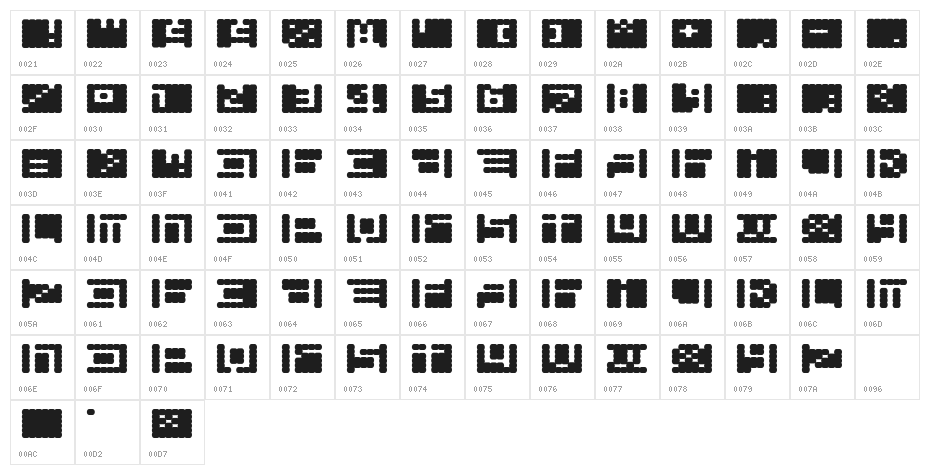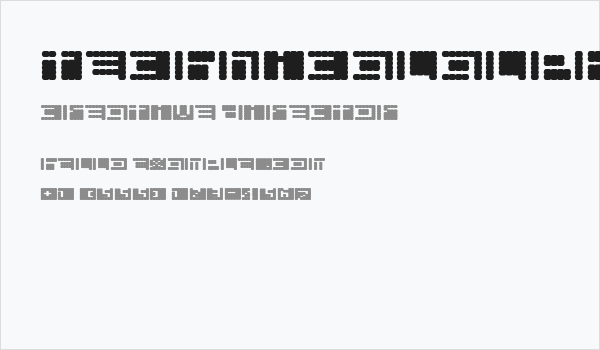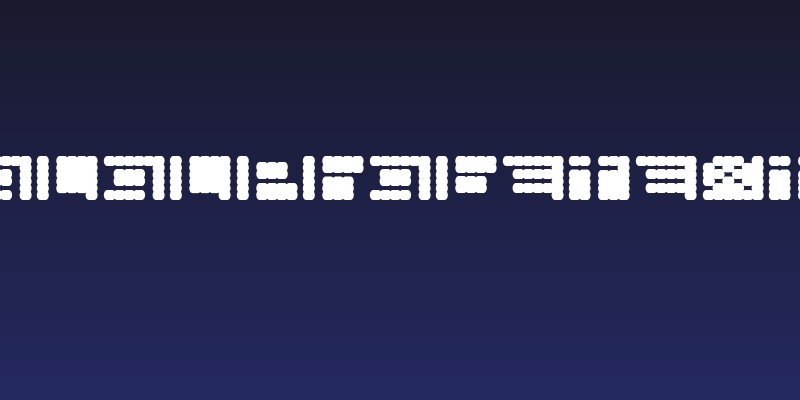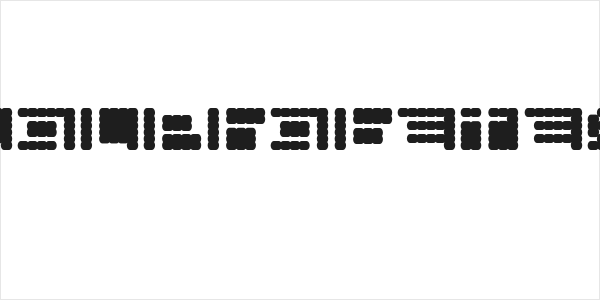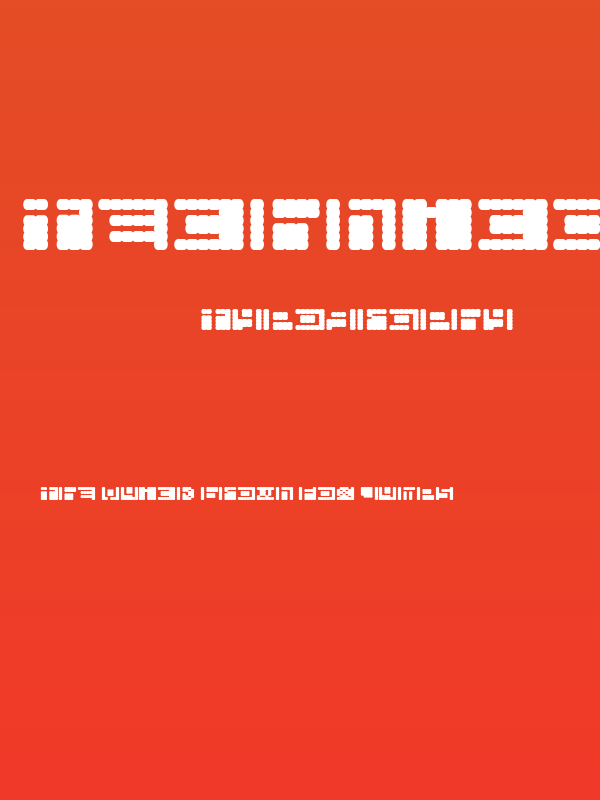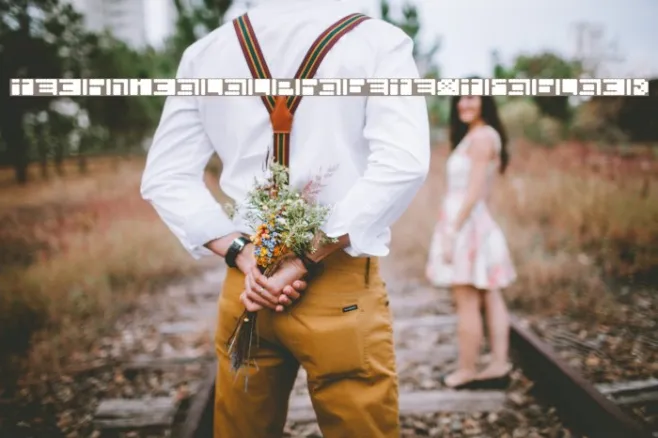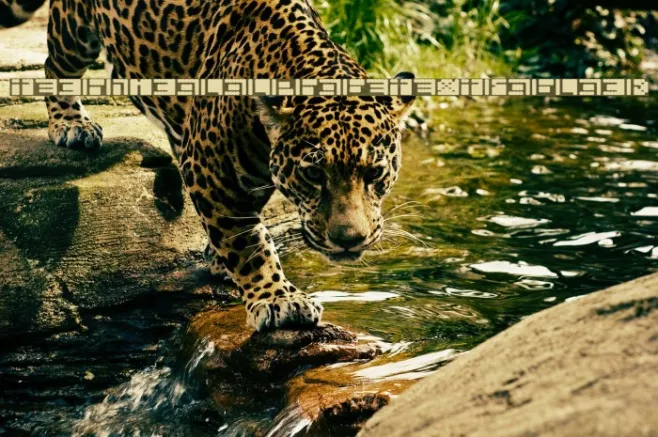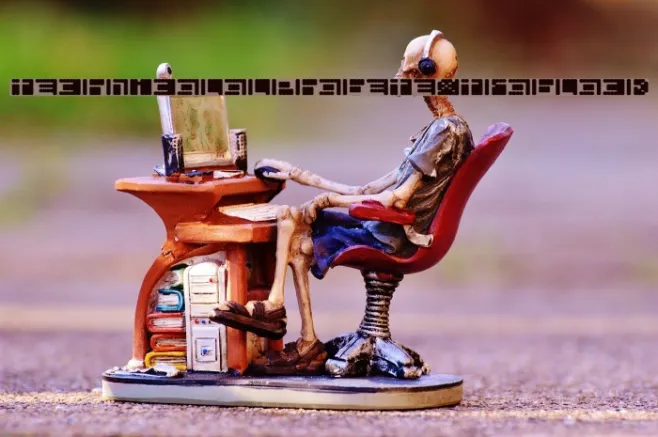
TechnicalAlphabetExtraBlack Font
TechnicalAlphabetExtraBlack Description
This font features a highly technical and futuristic design, characterized by its blocky and geometric shapes. Each character is composed of a series of thick, bold lines and dots, creating a digital and mechanical appearance. The uniformity and precision of the characters suggest a style that is both modern and industrial. The font's unique structure makes it stand out, with each letter and number maintaining a consistent height and width, contributing to its monospaced nature. The overall aesthetic is reminiscent of digital displays or coding environments, making it ideal for projects that require a technological or avant-garde feel.
| Use Case | Logos, Digital interfaces, Technology branding |
| Proposed Projects | Ideal for technology-themed projects, digital interfaces, coding environments, and modern branding. |